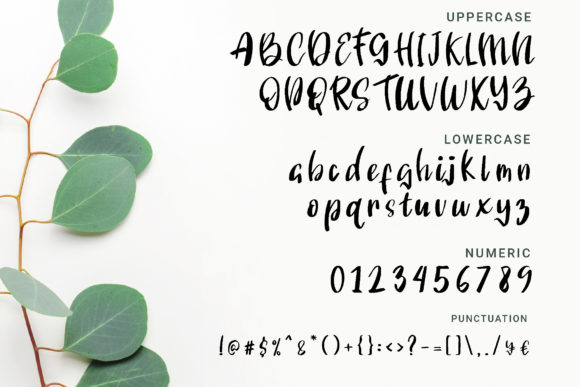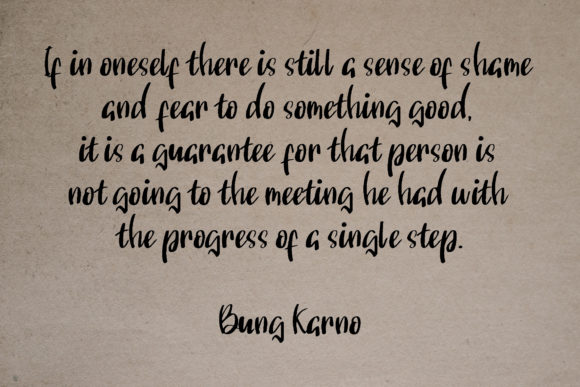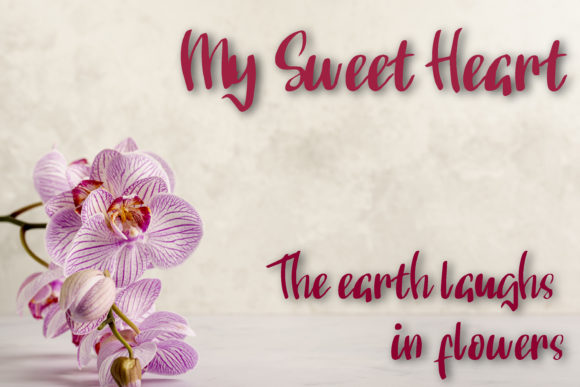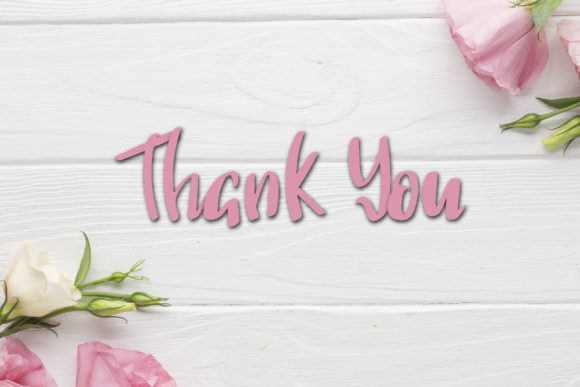
Discover the Elegance of Angelonia Font: A Delicate Handwritten Masterpiece
Are you a designer or crafter looking for a font that exudes elegance and sophistication? Look no further than the Angelonia Font. This delicate and elegant handwritten font is sure to capture your heart with its distinct and well-balanced letters, making it a masterpiece for any design project.
The Unique Characteristics of Angelonia Font
Angelonia Font boasts a unique and versatile style that sets it apart from other fonts. Its delicate and elegant handwritten letters are carefully crafted to provide a beautiful and sophisticated look to any design. The font’s distinct characteristics include:
- Delicate and Elegant: Angelonia Font features a delicate and elegant style that is perfect for designs that require a touch of sophistication.
- Well-Balanced Letters: The font’s letters are carefully crafted to provide a well-balanced look, making it easy to read and visually appealing.
- Incredibly Versatile: Angelonia Font is incredibly versatile, making it suitable for a wide range of design projects, from wedding invitations to branding and packaging.
Why Designers and Crafters Love Angelonia Font
Designers and crafters love Angelonia Font for its unique and elegant style. Here are some reasons why:
- Ease of Use: Angelonia Font is easy to use and can be applied to various design projects, including digital and print designs.
- Highly Readable: The font’s well-balanced letters make it highly readable, even at small sizes.
- Customizable: Angelonia Font can be customized to fit your design needs, making it a great choice for designers who want to add a personal touch to their work.
Tips for Using Angelonia Font in Your Designs
Here are some tips for using Angelonia Font in your designs:
- Pair it with Other Fonts: Angelonia Font can be paired with other fonts to create a unique and interesting look. Try pairing it with a bold font for a striking contrast.
- Use it for Headings and Titles: Angelonia Font is perfect for headings and titles, where its elegant style can shine.
- Add a Personal Touch: Use Angelonia Font to add a personal touch to your designs, such as in wedding invitations or greeting cards.
Inspiration for Your Next Design Project
Angelonia Font is perfect for a wide range of design projects, including:
- Wedding Invitations: Use Angelonia Font to create beautiful and elegant wedding invitations that will set the tone for the big day.
- Branding and Packaging: Angelonia Font is a great choice for branding and packaging designs, where its elegant style can help to create a sophisticated and luxurious look.
- Digital Designs: Use Angelonia Font in digital designs, such as social media graphics and website headers, to add a touch of elegance and sophistication.
In conclusion, Angelonia Font is a delicate and elegant handwritten font that is sure to capture your heart. Its distinct and well-balanced letters make it a masterpiece for any design project. With its incredibly versatile style, Angelonia Font is perfect for designers and crafters who want to create spectacular designs that exude elegance and sophistication.